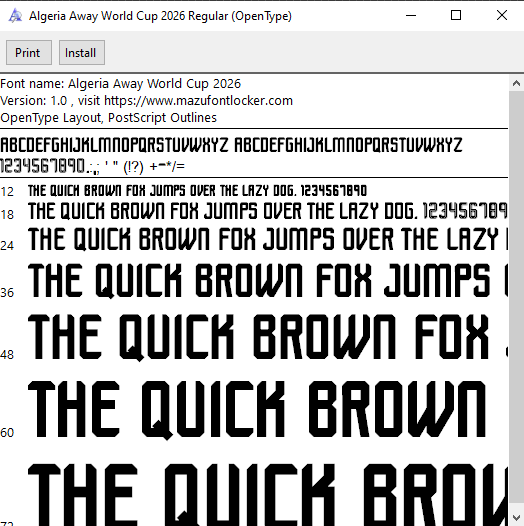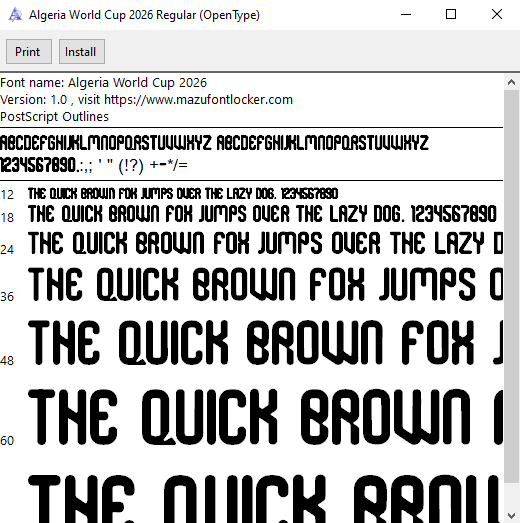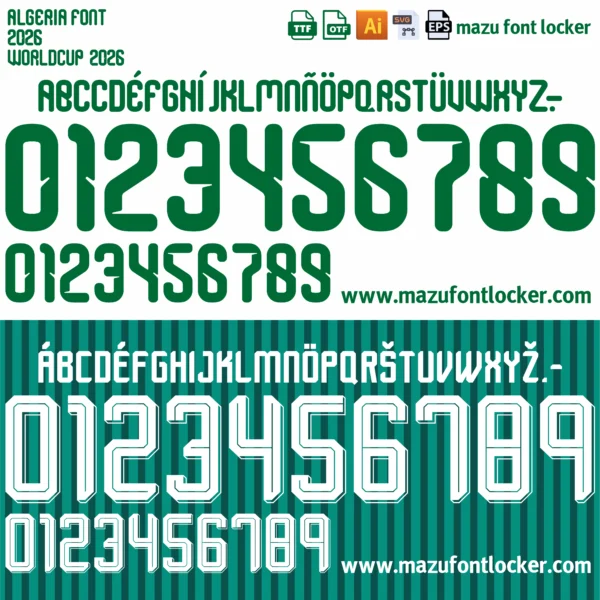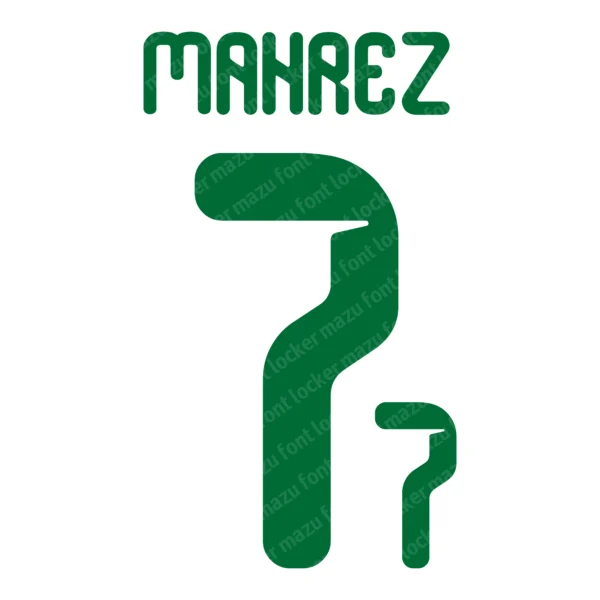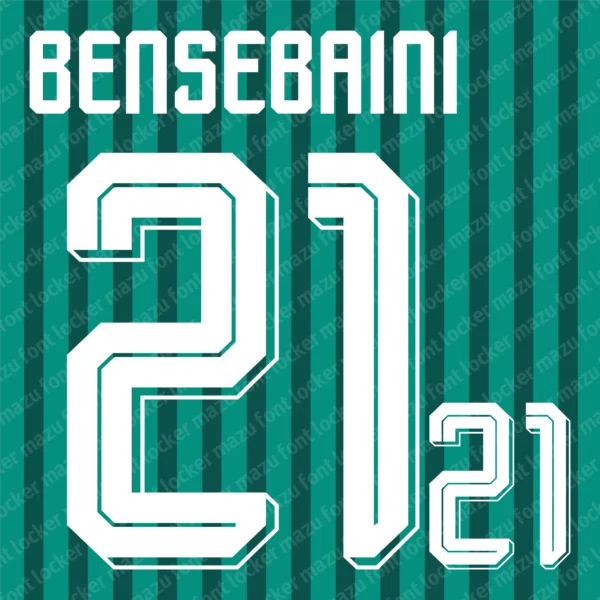
Algeria World Cup 2026 Font Vector – Epic Fennec Warriors Masterpiece
Algeria World Cup 2026 Font Vector – Authentic Desert Foxes Typeface
The Algeria World Cup 2026 Font Vector is a premium typeface that captures the bold and vibrant official lettering style inspired by the Desert Foxes for the 2026 FIFA World Cup. This high-quality vector font kit delivers the exact modern aesthetic used for Algeria’s national team kits, celebrating the spirit, energy, and pride of Algerian football.
Why Choose Algeria World Cup 2026 Font Vector
This font stands out because of its sharp vector precision and strong national identity. Every letter and number is crafted to reflect the powerful, confident typography expected on the Desert Foxes’ 2026 World Cup kits. Whether you’re designing official-looking templates or nostalgic football content, this font gives your projects that authentic Algerian flair.
The letterforms are tall, bold, and highly readable with clean, strong strokes. The design combines modern sharpness with the proud character of Algerian football typography.
The numerals feature bold curves and firm edges, ensuring excellent visibility on player jerseys while maintaining a premium and dynamic appearance suitable for both print and digital use.
The Algeria World Cup 2026 Font Vector is an independently designed typeface package. It is carefully crafted to replicate the official shirt lettering style inspired by Algeria’s 2026 World Cup campaign. This font kit is perfect for creative projects, fan edits, jersey designs, and football graphics.